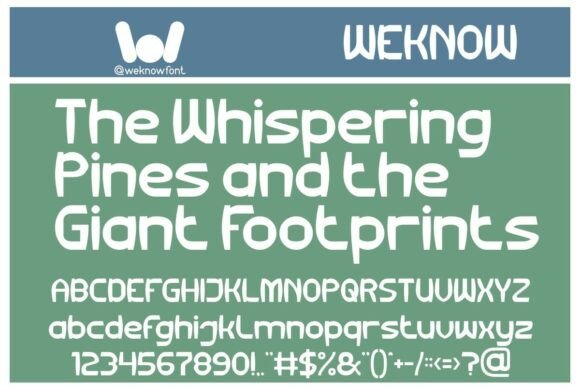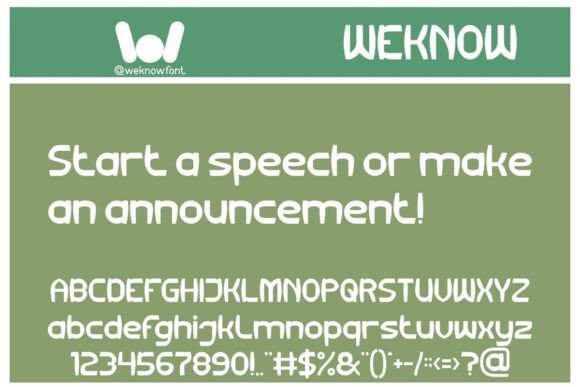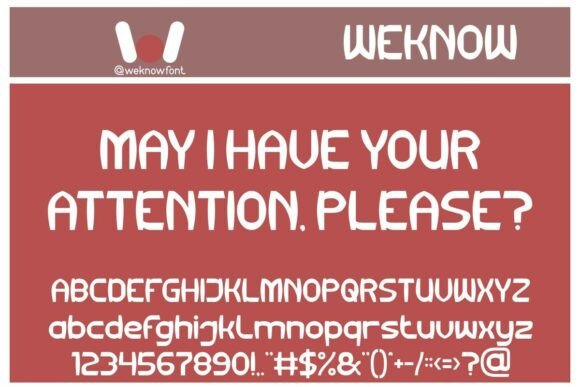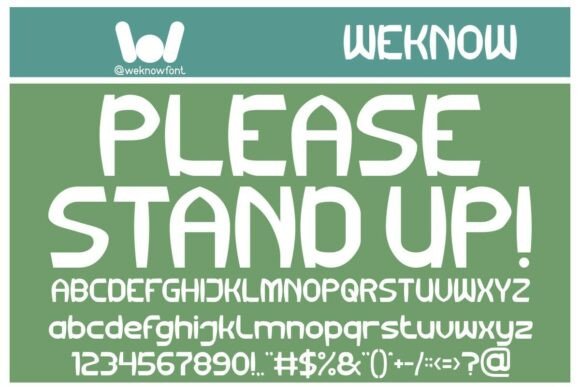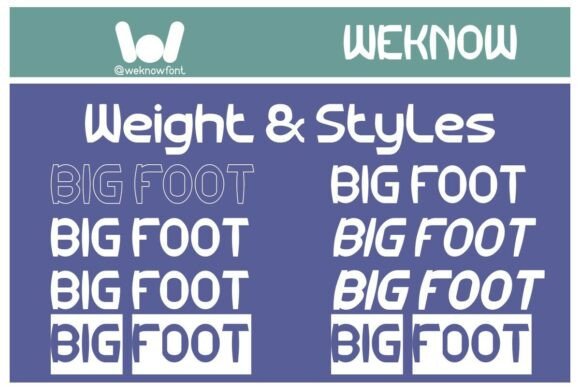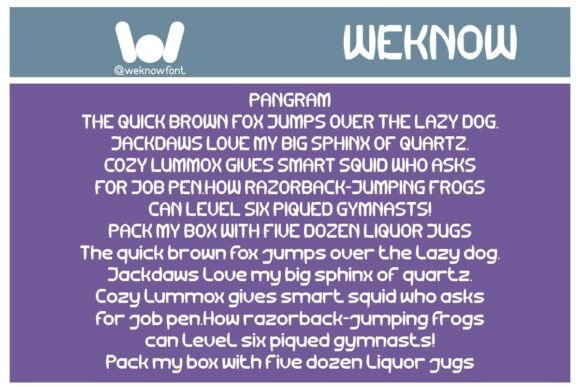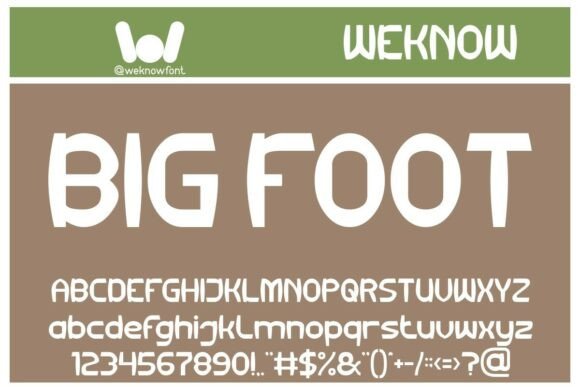
Unleash Your Creativity with Big Foot Font: A Funky Mix of Cartoonish Charm
Welcome to the world of Bigfoot, a display font that is sure to turn heads with its unique blend of cartoonish charm and rounded geometry. This thoughtfully crafted font is designed to inject life into your creative endeavors, making it perfect for a wide range of projects, from intriguing headlines and magnetic brand identities to standout clothing labels.
A Perfect Companion for Creative Projects
Bigfoot’s eclectic aesthetic makes it an ideal companion for musical, cinematic, or gaming projects. Its playful and eye-catching design is sure to capture the attention of your audience, adding a touch of fun and personality to your content. Whether you’re creating a digital comic, a magazine, or a book, Bigfoot has the ability to wonderfully weave itself into your storyline, making it a memorable and engaging experience for your readers.
Shine on Social Media Platforms
In today’s digital age, social media platforms like YouTube and Instagram have become essential channels for creators to showcase their work. Bigfoot font is perfectly suited for these platforms, giving your content a unique thumbprint that sets you apart from the crowd. With Bigfoot, you can create eye-catching thumbnails, titles, and descriptions that grab attention and drive engagement.
Elevate Your Brand Identity
Bigfoot font is not just a display font; it’s a tool for building a strong brand identity. Its unique design makes it perfect for creating logos, business cards, and other marketing materials that reflect your brand’s personality. With Bigfoot, you can create a consistent visual brand that resonates with your target audience, setting you apart from your competitors.
Bigfoot font offers endless possibilities for designers and crafters. Its versatility makes it suitable for a wide range of projects, from:
• Headlines and titles: Add a touch of personality to your headlines and titles with Bigfoot’s playful design.
• Clothing labels: Create standout clothing labels that reflect your brand’s personality.
• Digital comics: Add a unique touch to your digital comics with Bigfoot’s cartoonish charm.
• Magazines and books: Use Bigfoot to create eye-catching titles, headings, and pull quotes.
• Websites: Make your website stand out with Bigfoot’s unique design.
Why Choose Bigfoot Font?
So, why choose Bigfoot font for your creative projects? Here are just a few reasons:
• Unique design: Bigfoot’s eclectic aesthetic sets it apart from other fonts.
• Versatility: Suitable for a wide range of projects, from digital comics to clothing labels.
• Playful personality: Adds a touch of fun and personality to your content.
• Easy to read: Despite its playful design, Bigfoot is easy to read, making it perfect for body text and headlines.
In conclusion, Bigfoot font is a versatile and playful display font that is sure to turn heads. Its unique blend of cartoonish charm and rounded geometry makes it perfect for a wide range of creative projects, from musical and cinematic projects to digital comics and clothing labels. With Bigfoot, you can unleash your creativity, make your projects speak volumes, and let your personality shine. So why not give Bigfoot font a try today and see the difference it can make in your creative endeavors?